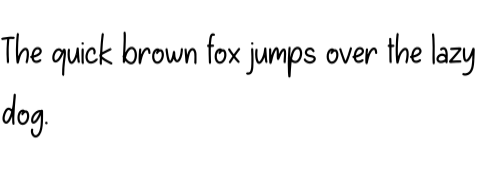
Lamoque Font: A Charming Handwritten Typeface
Lamoque Font is a beautiful, handwritten typeface that has gained popularity among designers and typography enthusiasts alike. Its unique charm and personality make it an excellent choice for a wide range of design applications. In this article, we’ll explore the features and benefits of Lamoque Font, and discuss how it can add a touch of warmth and authenticity to your designs.
What is Lamoque Font?
Lamoque Font is a charming handwritten typeface that exudes warmth and personality with every stroke. Its flowing lines and organic shapes evoke the feeling of handwritten notes, adding a touch of authenticity and intimacy to any design. The font’s casual yet elegant appearance makes it versatile for a wide range of applications, from invitations and greeting cards to branding and packaging.
Key Features of Lamoque Font
Lamoque Font has several key features that make it stand out from other typefaces. Some of its notable features include:
- Handwritten appearance: Lamoque Font has a natural, handwritten appearance that gives it a unique charm and personality.
- Flowing lines and organic shapes: The font’s flowing lines and organic shapes evoke the feeling of handwritten notes, adding a touch of authenticity and intimacy to any design.
- Irregularities in letterforms: The irregularities in letterforms give Lamoque Font a natural and human touch, as if each character was carefully penned by hand.
- Casual yet elegant appearance: The font’s casual yet elegant appearance makes it versatile for a wide range of applications.
Benefits of Using Lamoque Font
Lamoque Font offers several benefits to designers and typography enthusiasts. Some of its benefits include:
- Adds a touch of authenticity and intimacy: Lamoque Font’s handwritten appearance and flowing lines add a touch of authenticity and intimacy to any design.
- Versatile: The font’s casual yet elegant appearance makes it versatile for a wide range of applications, from invitations and greeting cards to branding and packaging.
- Easy to read: Despite its handwritten appearance, Lamoque Font is easy to read, making it an excellent choice for body text and headlines.
- Unique: Lamoque Font’s unique charm and personality make it stand out from other typefaces, adding a touch of personality to any design.
Applications of Lamoque Font
Lamoque Font is versatile and can be used in a wide range of applications, including:
- Invitations and greeting cards: Lamoque Font’s handwritten appearance and flowing lines make it an excellent choice for invitations and greeting cards.
- Branding and packaging: The font’s casual yet elegant appearance makes it suitable for branding and packaging applications.
- Digital and print media: Lamoque Font can be used in both digital and print media, including websites, social media, and print materials.
- Art and design projects: The font’s unique charm and personality make it an excellent choice for art and design projects.
Tips for Using Lamoque Font
Here are some tips for using Lamoque Font effectively:
- Use it for headlines and titles: Lamoque Font’s unique charm and personality make it an excellent choice for headlines and titles.
- Pair it with other fonts: Lamoque Font can be paired with other fonts to create a unique and visually appealing design.
- Experiment with different sizes and colors: The font’s versatility makes it suitable for use in different sizes and colors.
- Use it consistently: To create a cohesive design, use Lamoque Font consistently throughout your project.
Lamoque Font is a charming handwritten typeface that exudes warmth and personality with every stroke. Its flowing lines and organic shapes evoke the feeling of handwritten notes, adding a touch of authenticity and intimacy to any design. With its casual yet elegant appearance, Lamoque Font is versatile and can be used in a wide range of applications. Whether you’re a designer or typography enthusiast, Lamoque Font is an excellent choice for adding a touch of personality to your designs.
FAQs about Lamoque Font
- What is Lamoque Font? Lamoque Font is a charming handwritten typeface that exudes warmth and personality with every stroke.
- What are the key features of Lamoque Font? Lamoque Font has several key features, including its handwritten appearance, flowing lines and organic shapes, irregularities in letterforms, and casual yet elegant appearance.
- What are the benefits of using Lamoque Font? Lamoque Font offers several benefits, including adding a touch of authenticity and intimacy, versatility, ease of reading, and uniqueness.
- What are some applications of Lamoque Font? Lamoque Font can be used in a wide range of applications, including invitations and greeting cards, branding and packaging, digital and print media, and art and design projects.